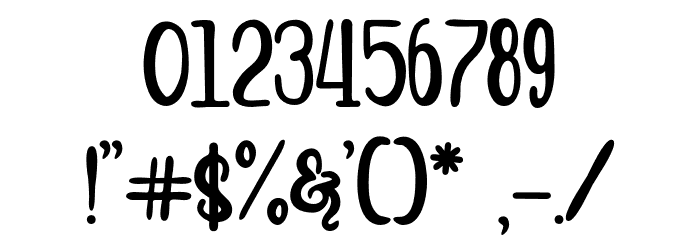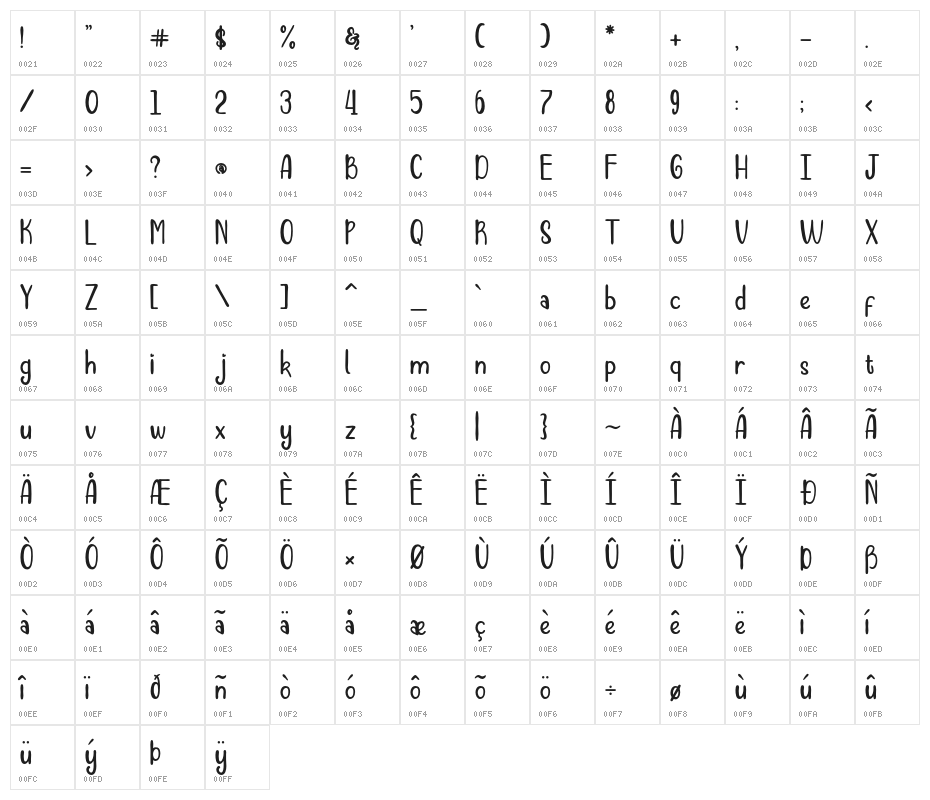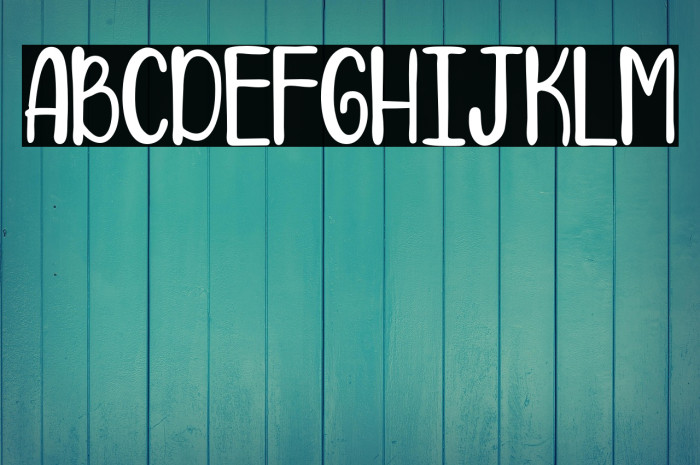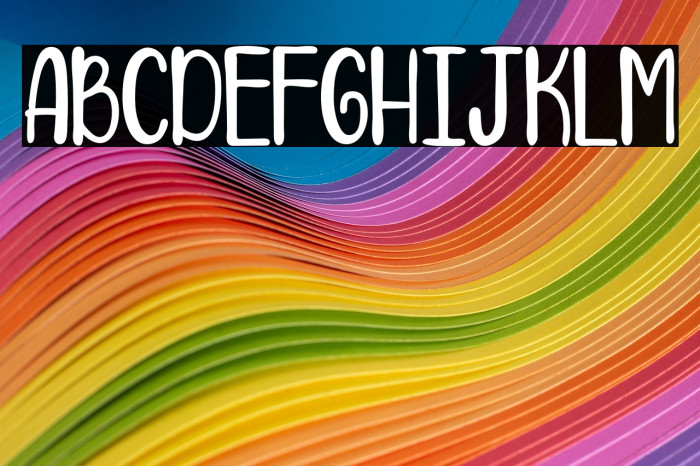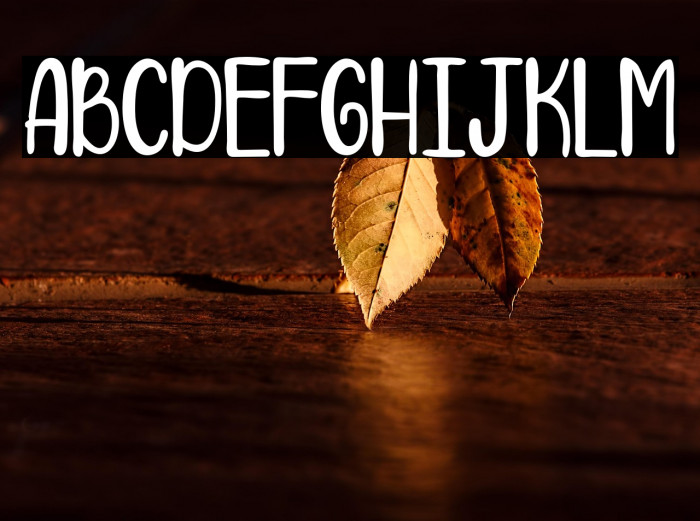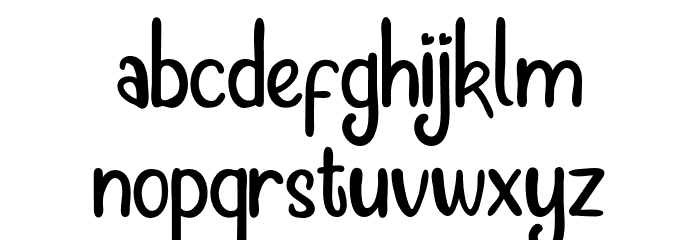
Jangkids Font
Jangkids Description
This playful and whimsical font features rounded, slightly irregular characters that give it a friendly and approachable appearance. The uppercase letters are tall and narrow, while the lowercase letters maintain a consistent height, creating a harmonious balance. The numbers are clear and easy to read, with a similar playful style. Special characters are included, maintaining the same playful aesthetic. This font is ideal for children's projects, educational materials, or any design that requires a fun and lighthearted touch. Its unique style makes it stand out, while still being legible and versatile.
| Use Case | Headlines, Logos, Children's books |
| Proposed Projects | Ideal for children's books, educational materials, playful branding, and greeting cards. |